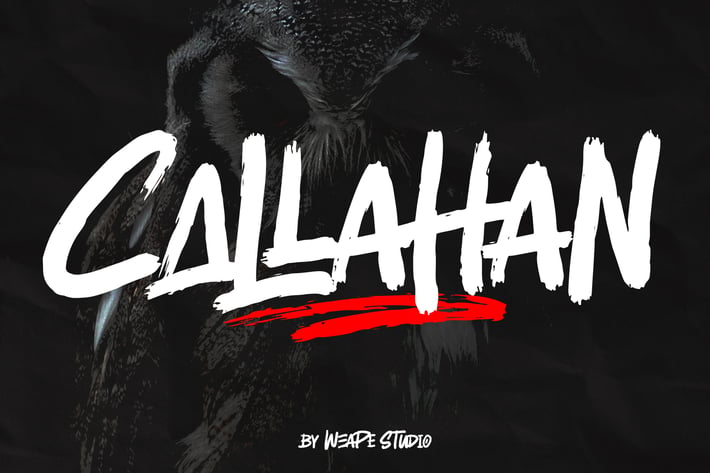
Callahan - Brush Font
Introducing Callahan - Brush Font! Callahan is brush font bursting with natural rough dry brush strokes, and the stroke of hand sharp and quickly. You can use and enjoy Callahan, for anything from promotional material to product packaging, merchandise, and branding projects. You can create with uppercase and lowercase combination, and make it as if you wrote it yourself.
And this font perfect for logo, band, poster, apparel, album cover, book cover, product packaging, handwritten quotes, magazine, and advertising.
All fonts is capitals containing upper & lowercase characters, numerals, multilingual support, and a large range of punctuation.